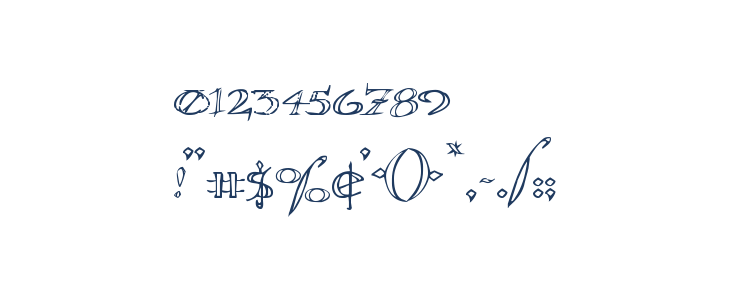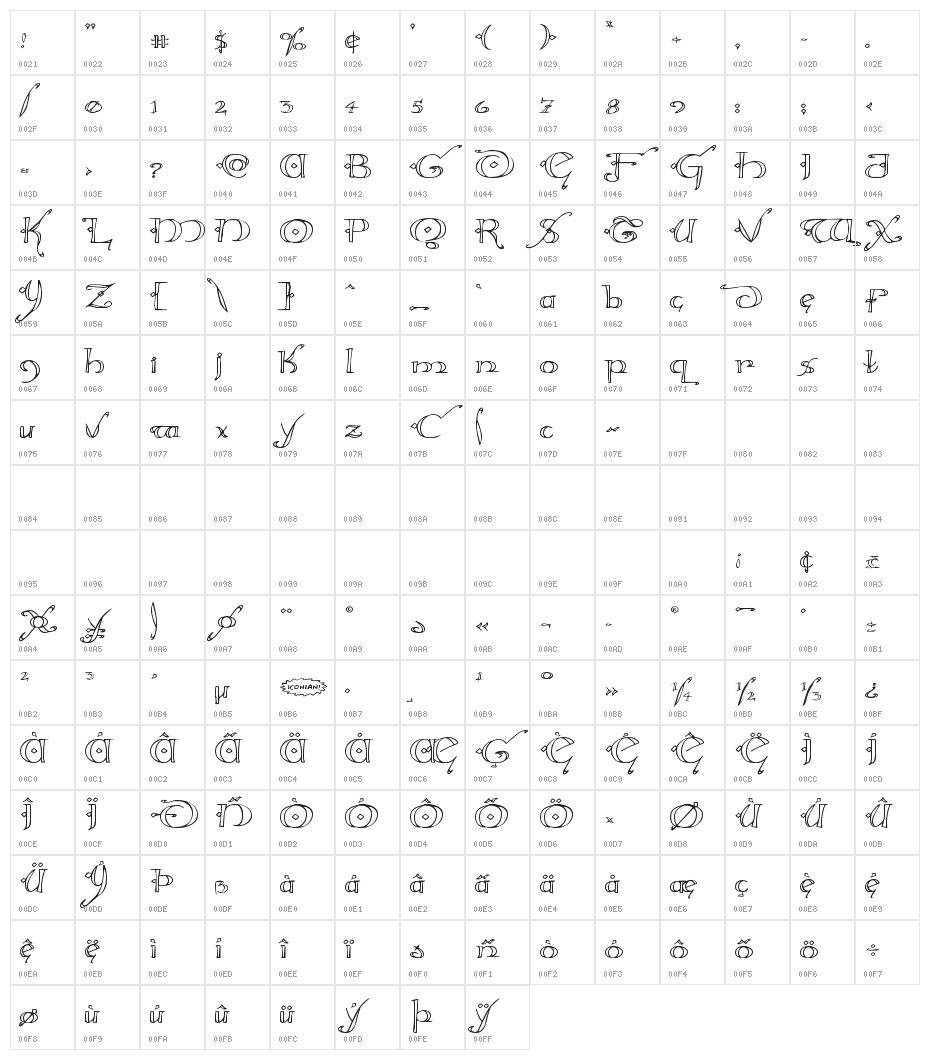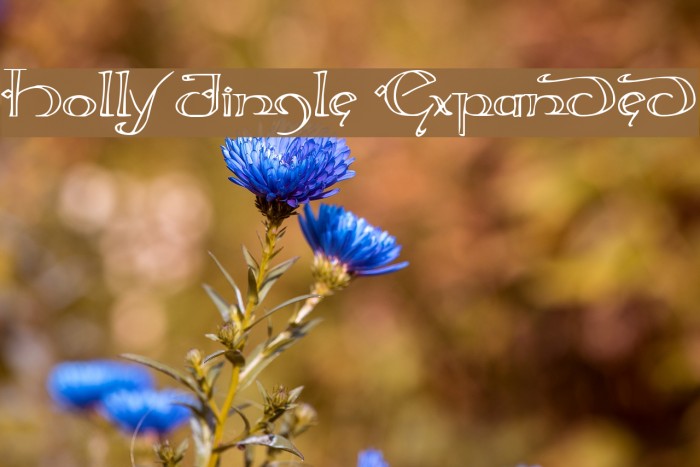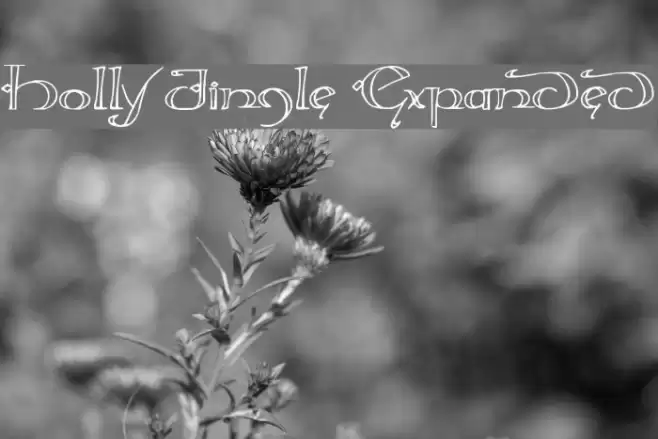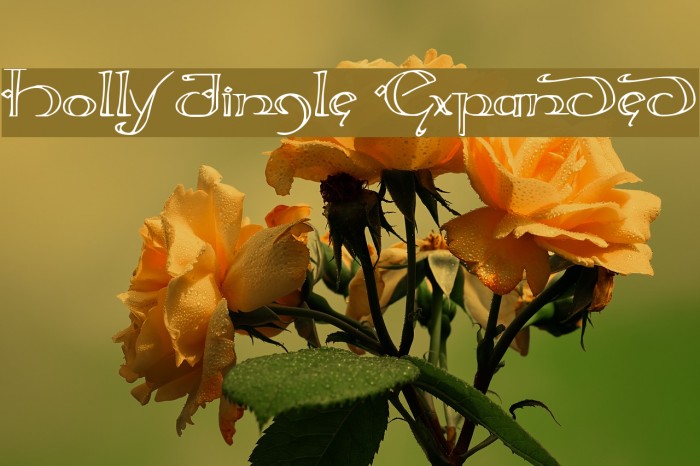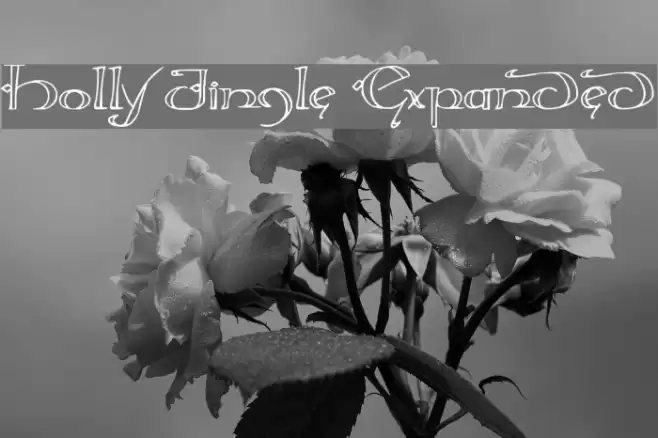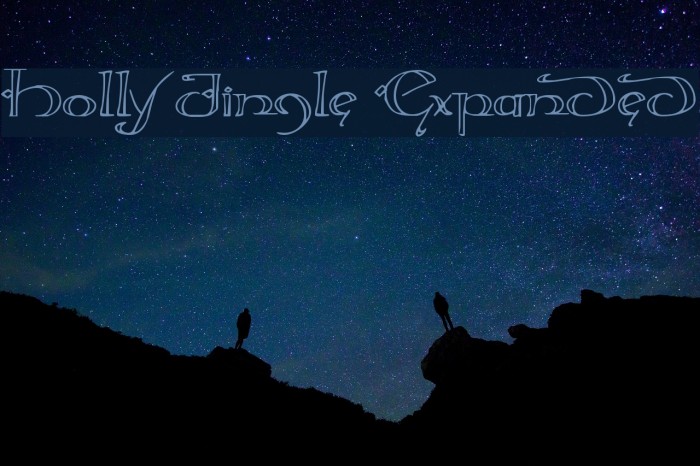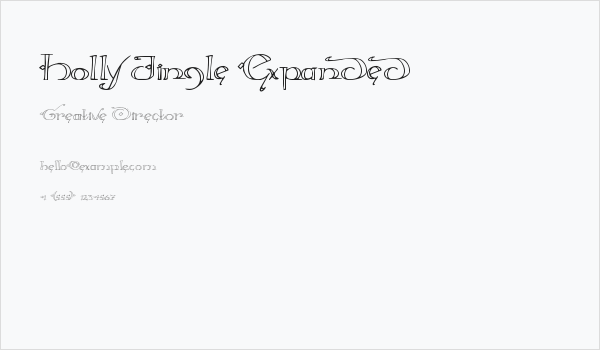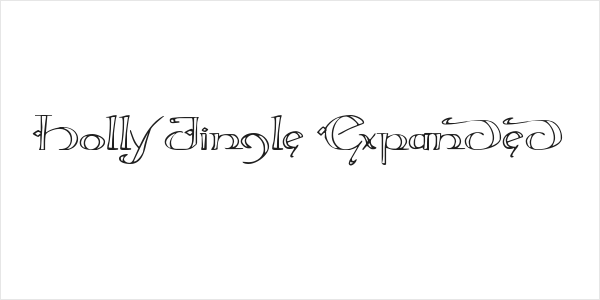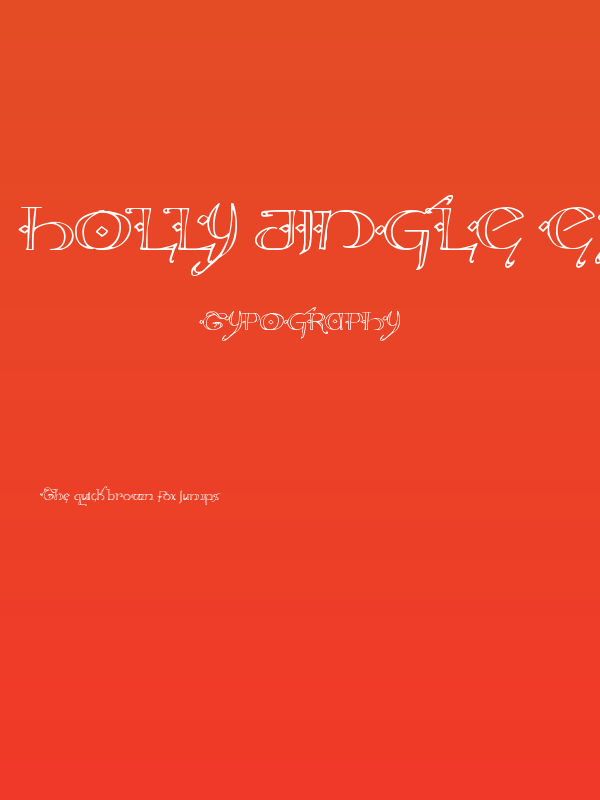
Holly Jingle Expanded Font
Holly Jingle Expanded Description
This font features an intricate and decorative style, characterized by its elaborate curves and flourishes. Each letter is uniquely crafted with a whimsical touch, making it stand out with its artistic flair. The uppercase letters are particularly ornate, with additional loops and swirls that give them a festive and playful appearance. The lowercase letters maintain a similar style, though slightly more subdued, ensuring readability while retaining the font's distinctive charm. The numbers and special characters are equally decorative, integrating seamlessly with the overall design. This font's expanded width and unique character shapes make it ideal for creative and expressive projects.
Use CaseHeadlines, Logos, Decorative text
Proposed ProjectsIdeal for holiday cards, festive invitations, decorative posters, and creative branding projects.